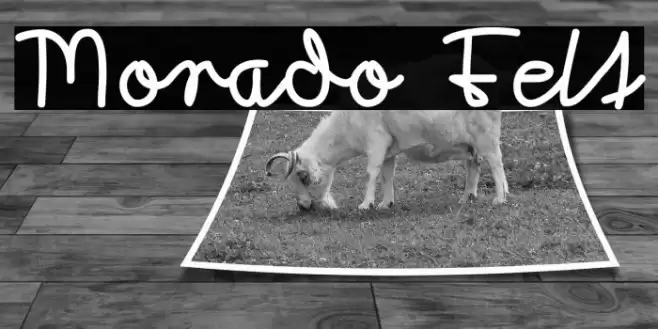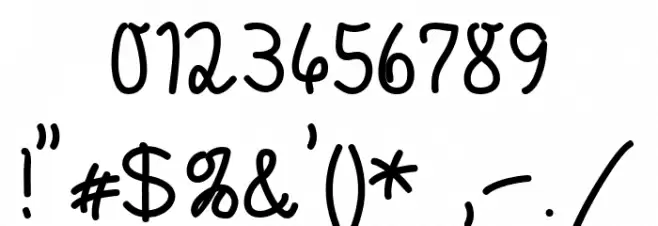
Morado Felt Font
Morado Felt Description
This font features a playful and casual handwritten style, characterized by its fluid and connected strokes. The uppercase letters maintain a consistent height, while the lowercase letters exhibit a slight slant, adding to the informal and relaxed appearance. The numerals are rounded and maintain a uniform size, complementing the overall style. Special characters are creatively integrated, maintaining the whimsical and friendly feel of the font. The strokes are moderately thick, providing a balanced contrast that enhances readability while preserving the handwritten charm.
A playful, casual handwritten font with fluid, connected strokes from Uncategorized fonts.
- Proposed Projects: Ideal for greeting cards, personal invitations, playful branding, and children's book covers.
- Overall Style: Casual
- Use Case: Logos, Invitations, Greeting Cards